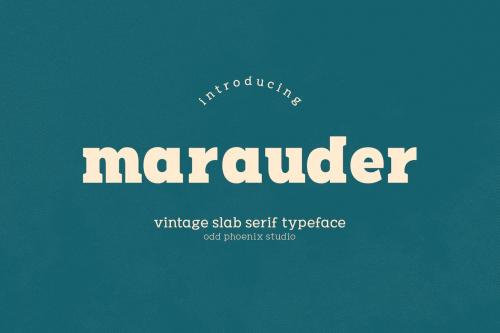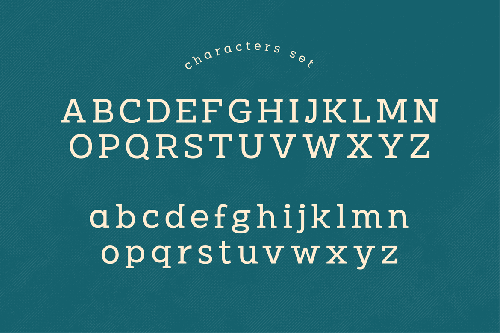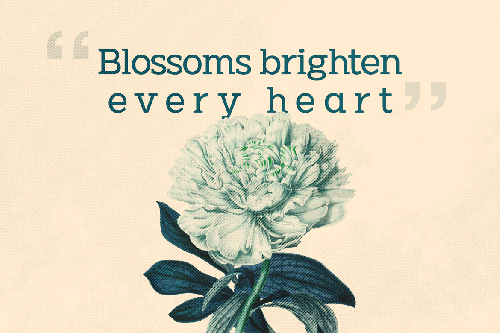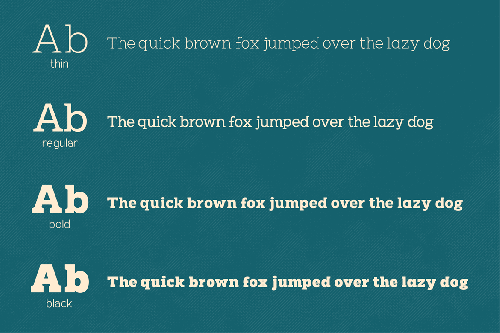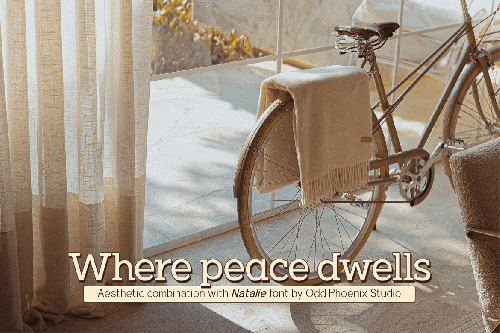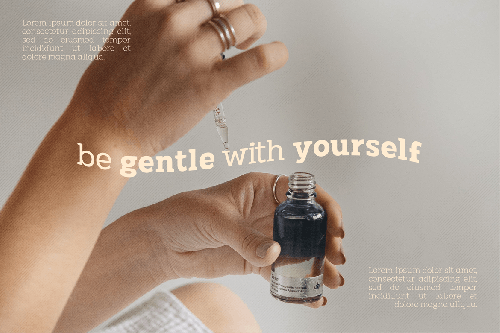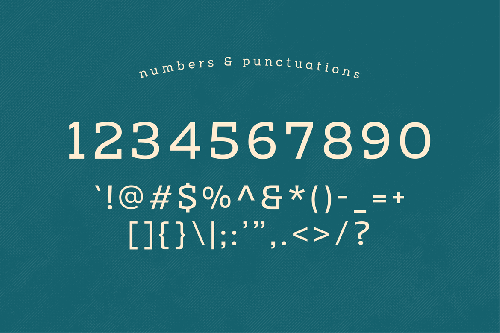
破坏者 - 经典衬线字体
Marauder - Vintage Slab Serif Typeface
**Marauder** is a slab serif font with strong, squared serifs. It suits vintage branding, headlines, and masculine-themed designs. Comes in thin, regular, bold, and black styles